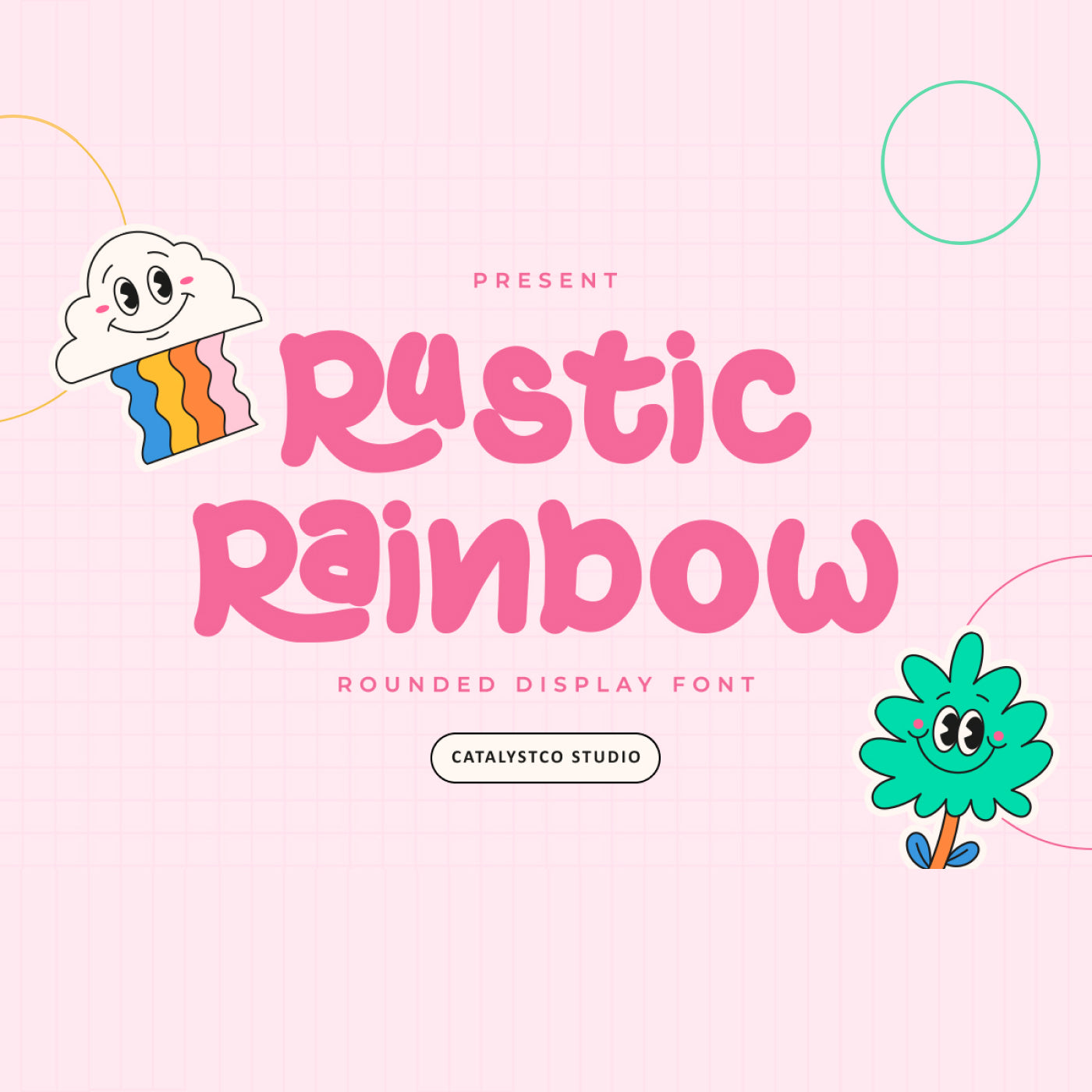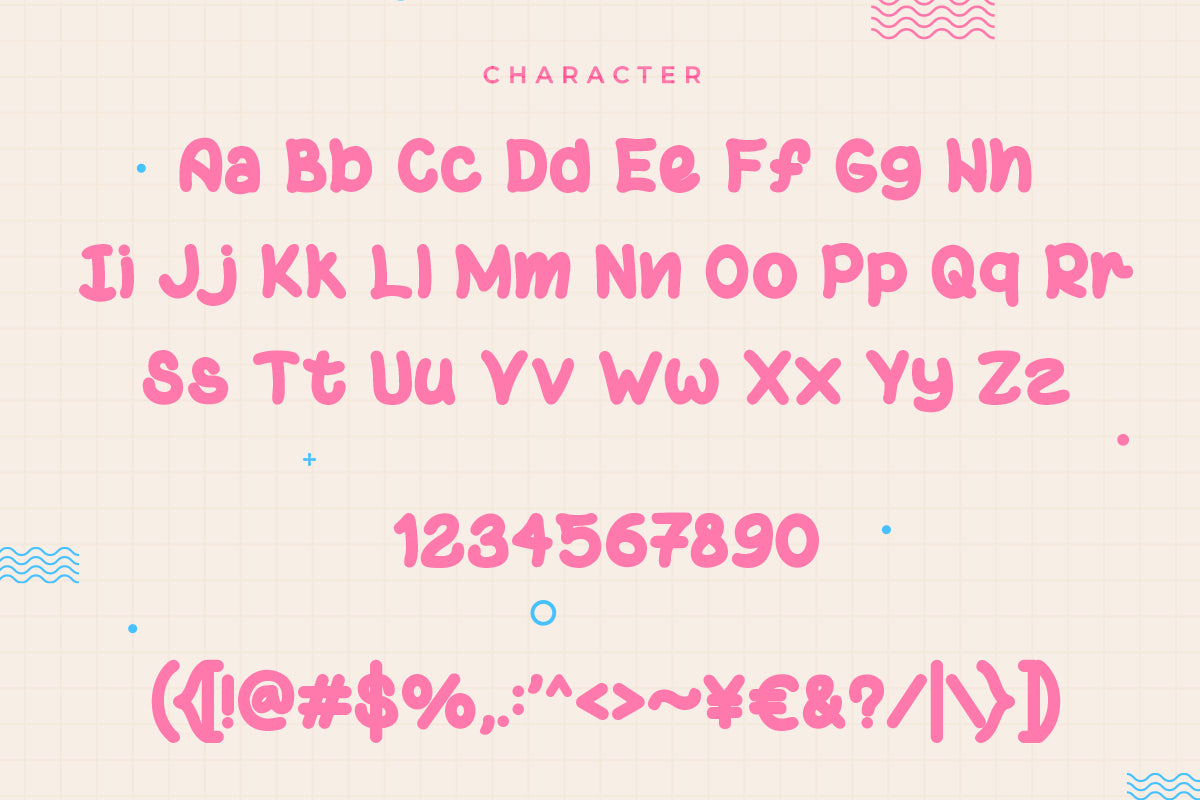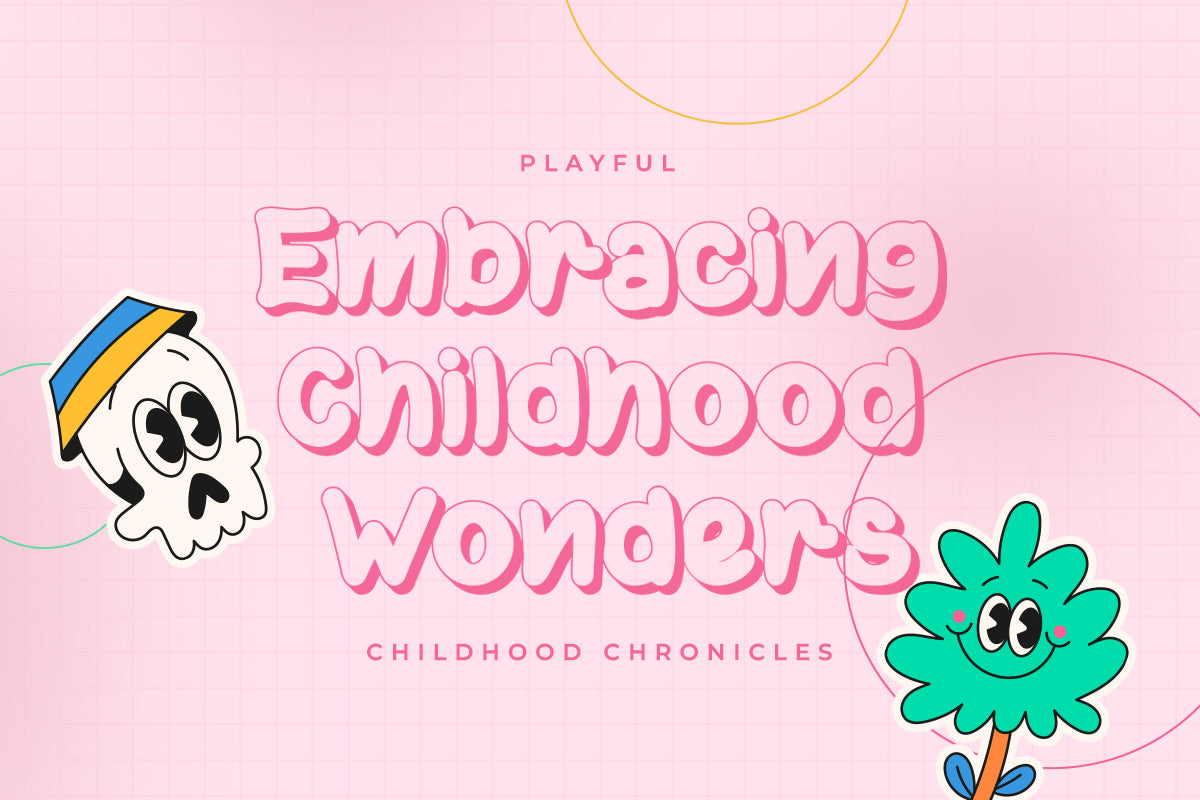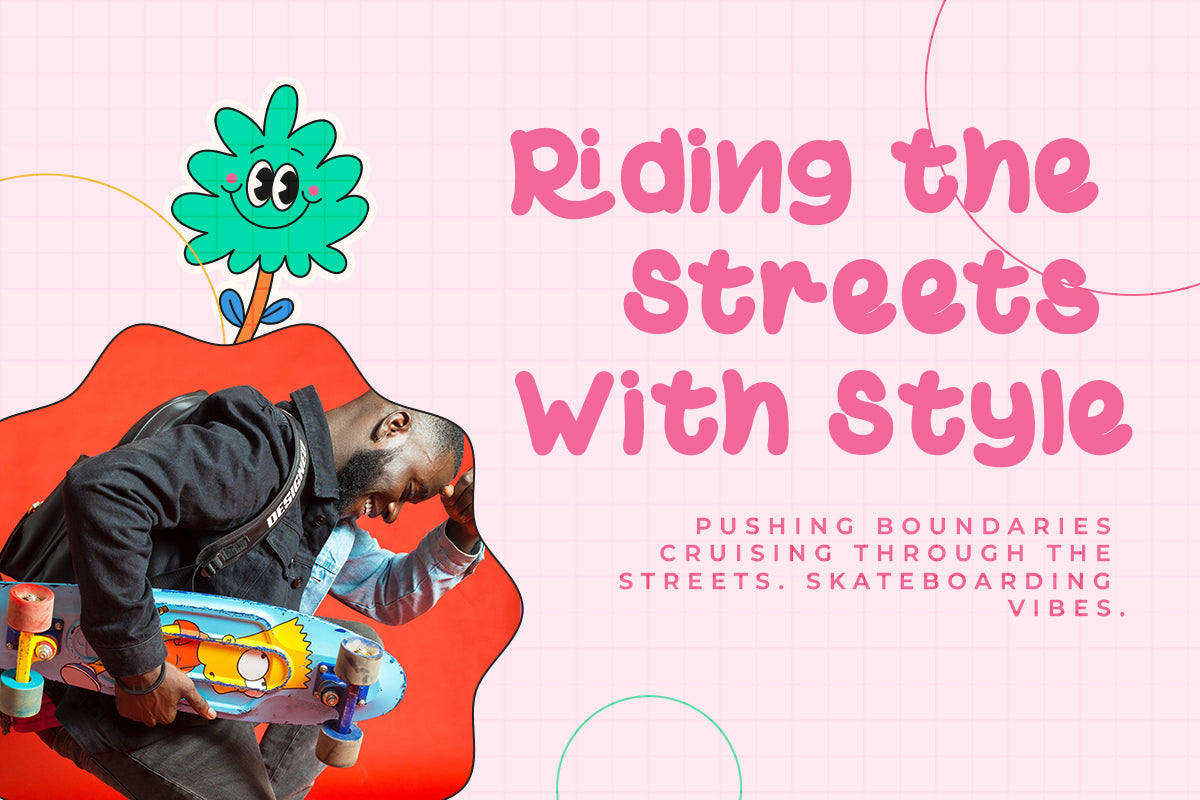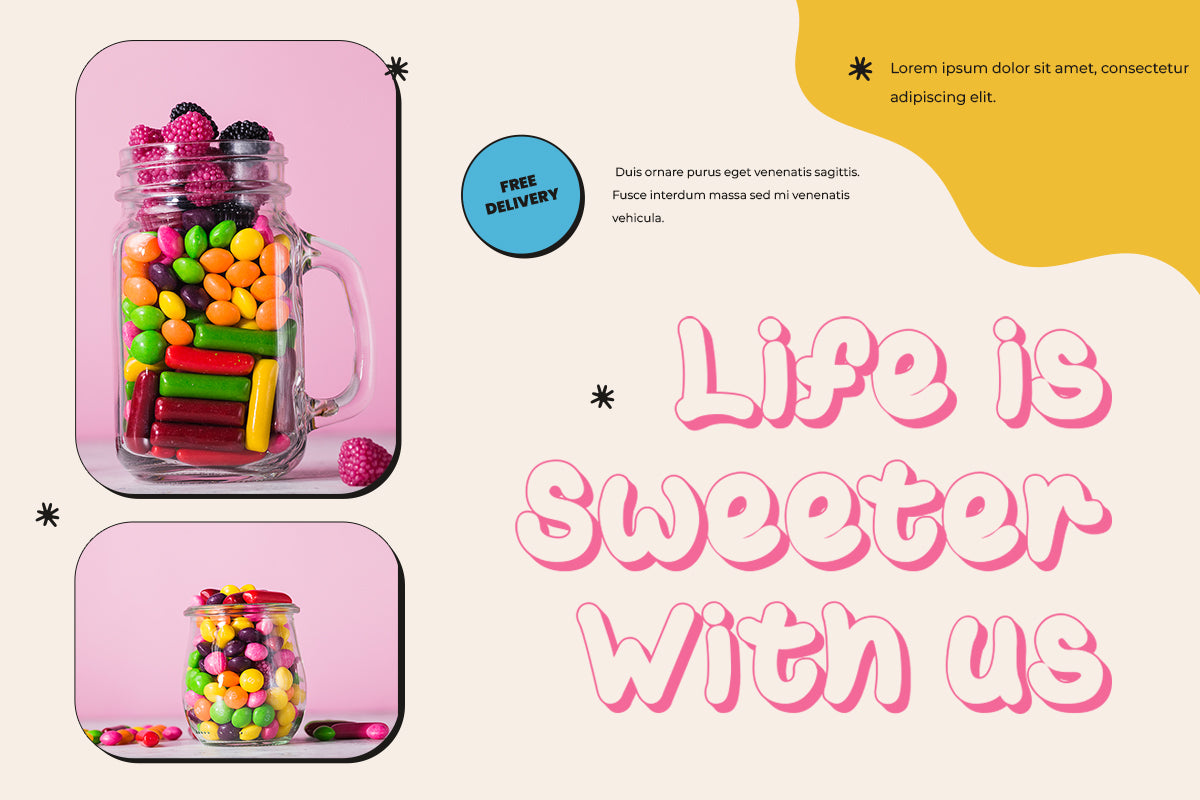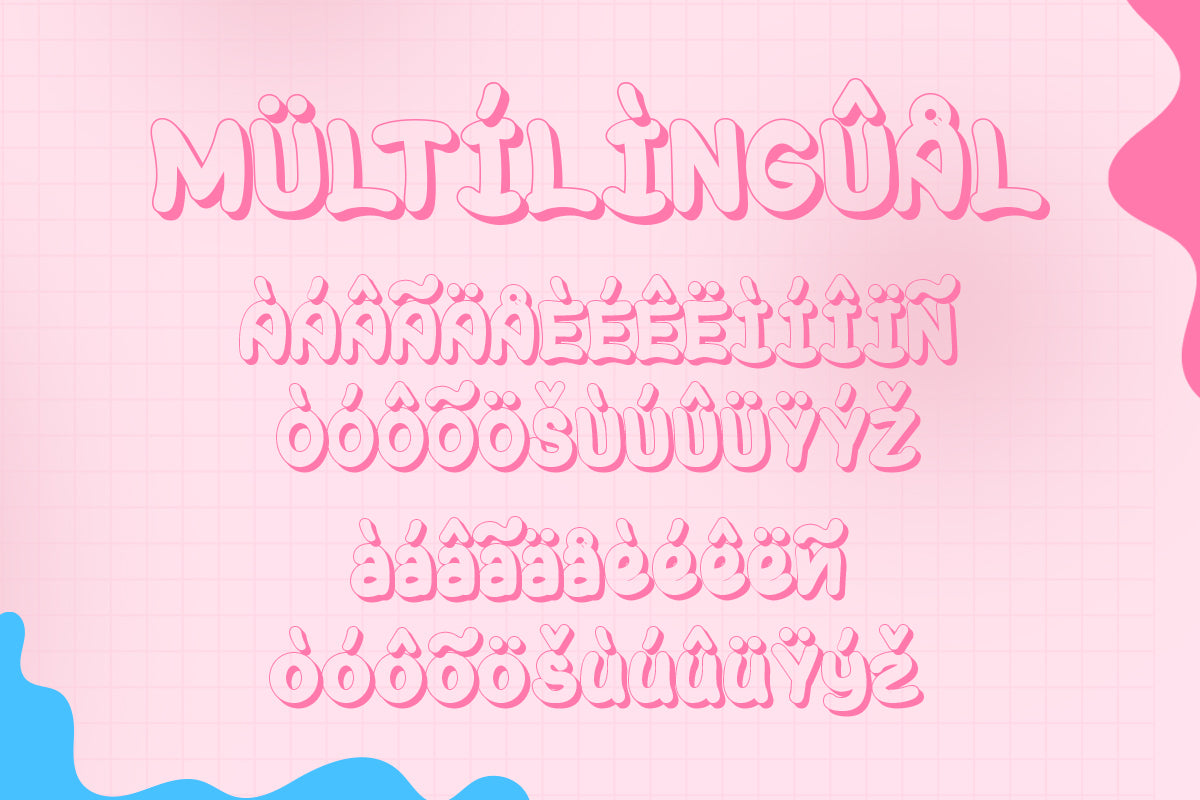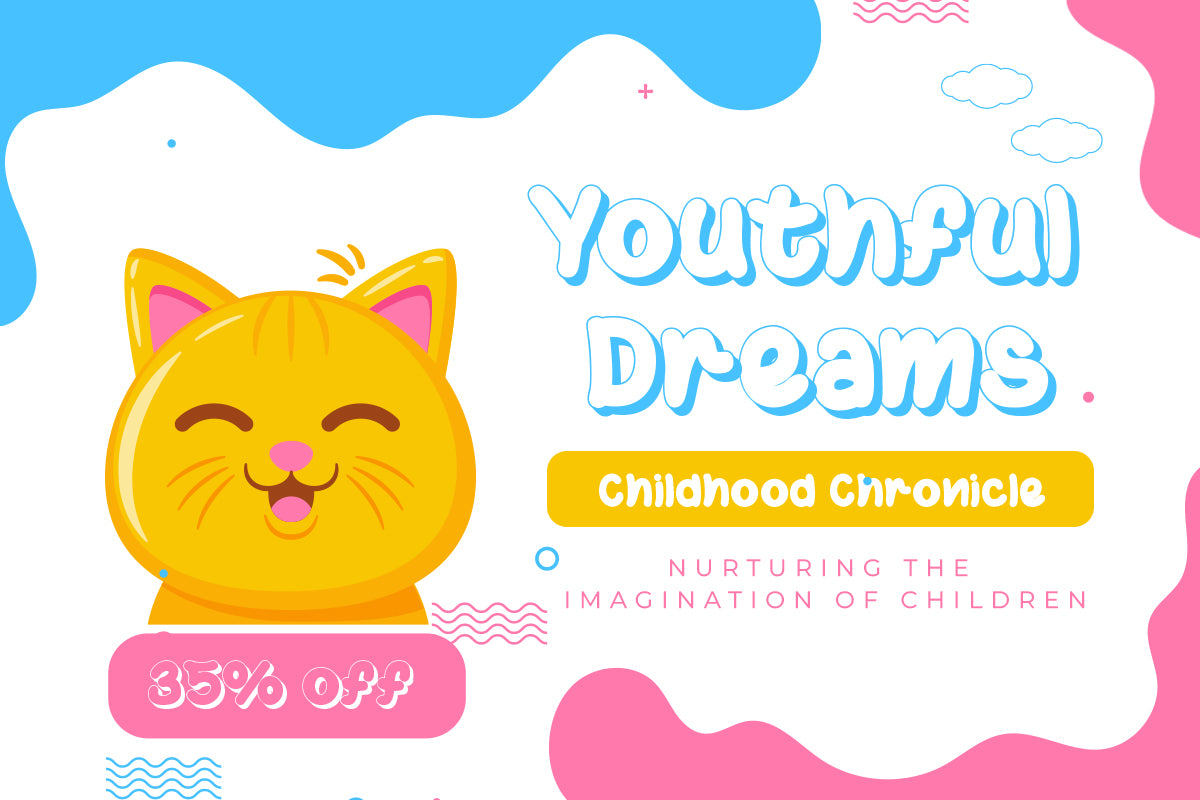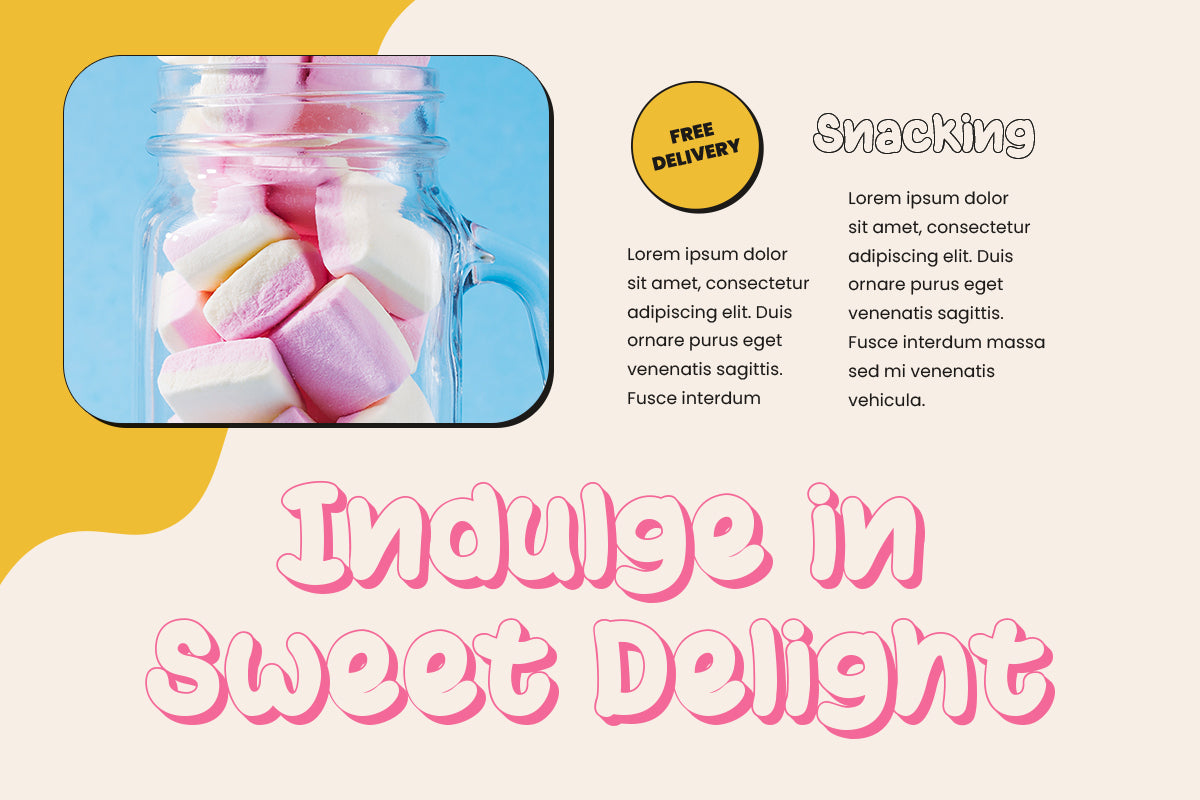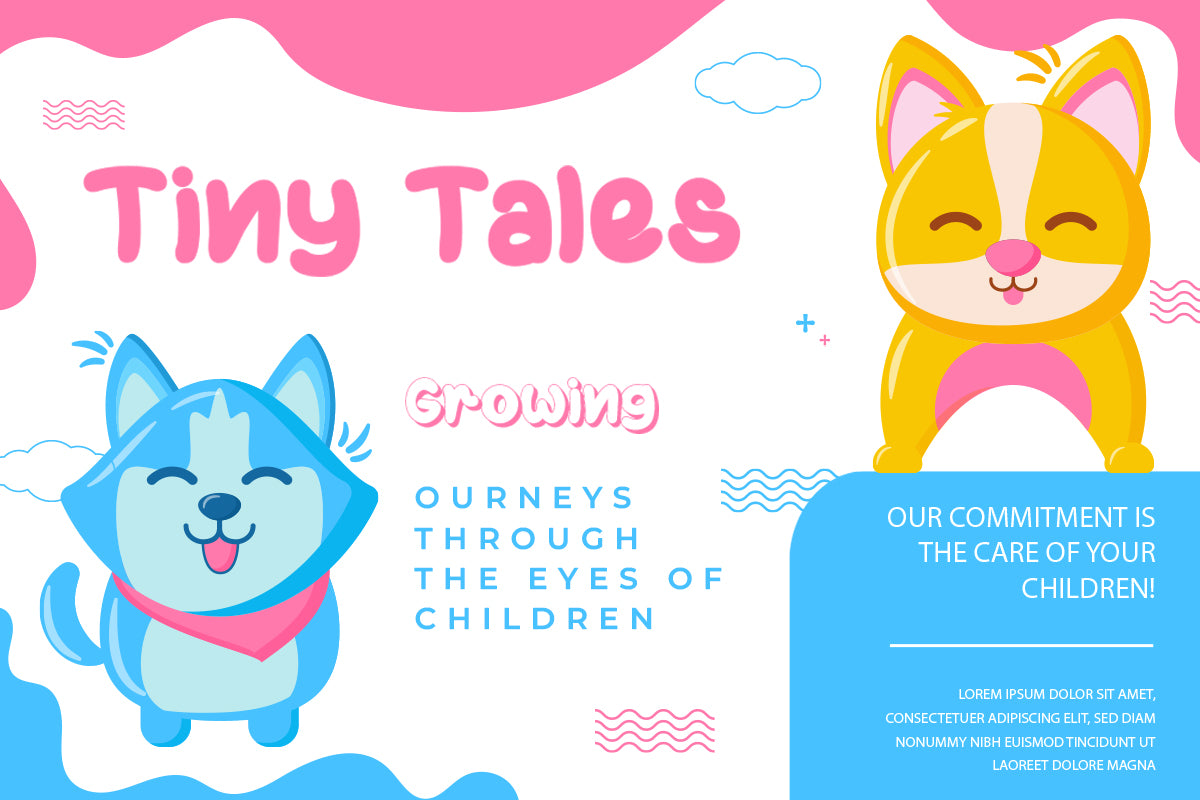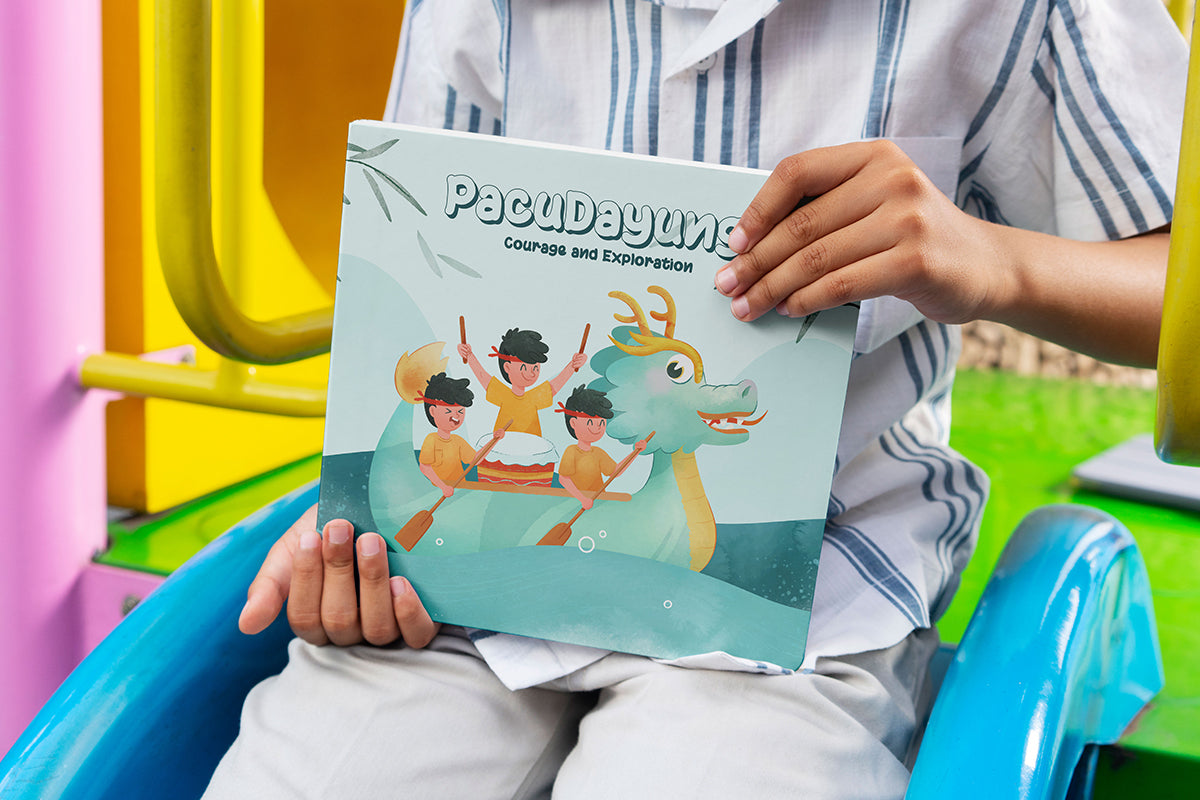
Rustic Rainbow Rounded Display Font
Rustic Rainbow is a playful rounded display font built around soft, chunky letterforms with an irregular hand-drawn character. Its inflated shapes, smooth curves, and friendly proportions create a cheerful visual style that stands out in large headlines while keeping short words easy to read. The character preview includes uppercase and lowercase letters, numerals, and a selection of punctuation and symbols, giving designers the basic character set needed for expressive display work. Its colorful, youthful personality works especially well when the typography needs to feel fun, casual, handmade, and approachable.
Rustic Rainbow is a rounded display font featuring chunky, hand-drawn letterforms with uppercase and lowercase characters, numerals, and punctuation. It is available in TTF, OTF, and WOFF formats and includes multilingual support.